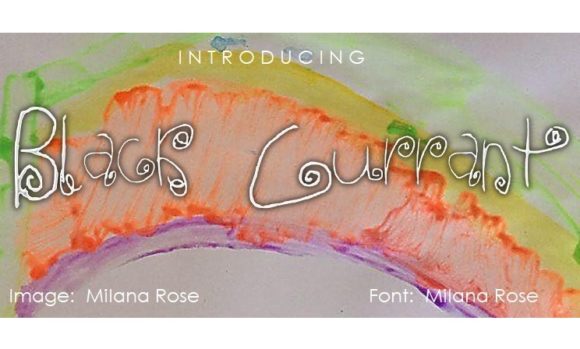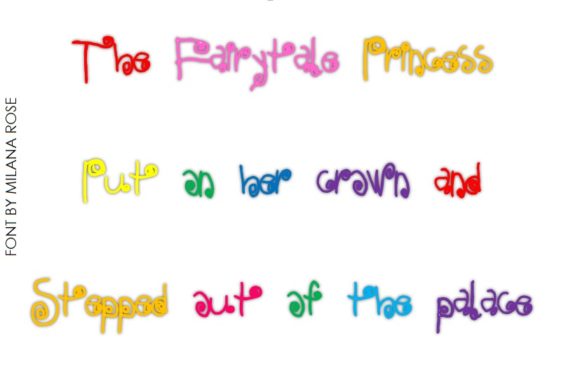
HomeScript FontsBlack Currant Font Script Fonts Black Currant Font FacebookXPinterestWhatsApp Black Currant Font Poster 2 About Black Currant Font Black Currant is an extremely imaginative font that will add a childlike theme to any design project! DOWNLOAD NOW People also explored Althero Font Couna Font Meadgold Font Gerlind Font Salt & Spices Pro Sweet Christmas Font Workhorse Beautiful Butterfly Font Organic Fridays Font 319 0 TagsBlack Currant Font Previous articleShaloems FontNext articleRomances Font LEAVE A REPLY Cancel reply Comment: Please enter your comment! Name:* Please enter your name here Email:* You have entered an incorrect email address! Please enter your email address here Website: Save my name, email, and website in this browser for the next time I comment. Personal Use Free Budmo Personal Use Free Read more about this font Ryujin Attack Personal Use Free Read more about this font Breakaway Personal Use Free Read more about this font Fillguy Font Personal Use Free Read more about this font BLOG Using Fonts in Digital Marketing: Tips to Strengthen Your Brand Identity In the realm of digital marketing, every visual element plays a crucial role in shaping a brand's identity, and fonts are no exception. The... Transform Your Website: Elevate Your Typography with 7 Best Web Font Generators To increase your work productivity, choose the most readable fonts. Top 7 Google Fonts Alternatives for Faster and Privacy-Friendly Web Design (2025)